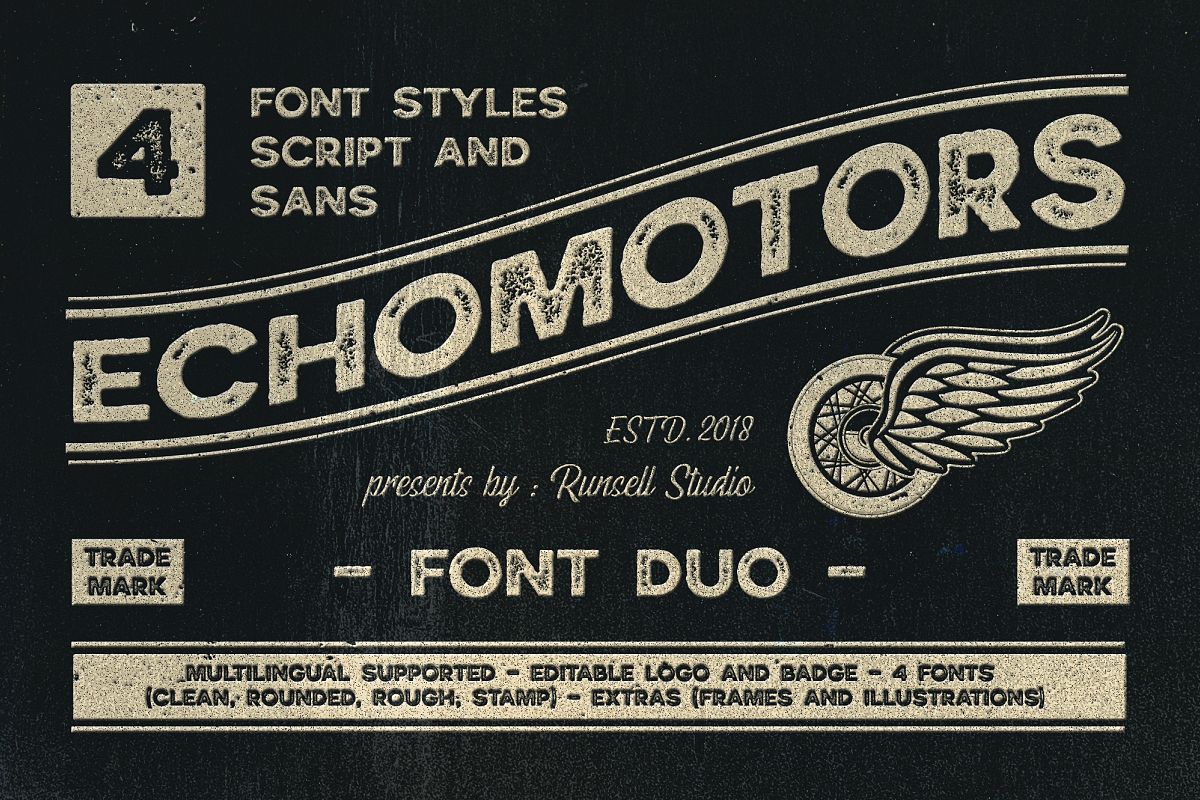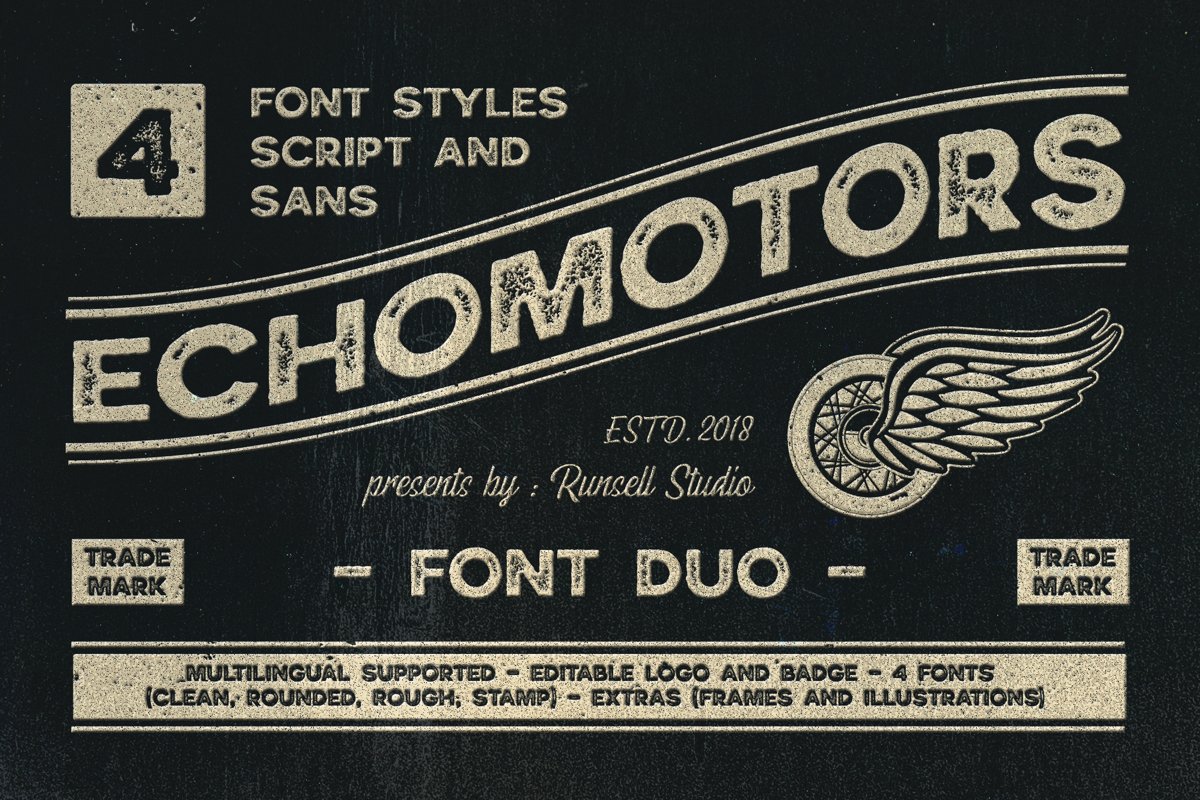
Echomotors
Echomotors fonts is font collection with bold sans and script. There are 4 styles (sans, rounded, rough and stamp) of each Echomotors font. This font matches applies in some designs such as the logotype, magazine, headline blog or website, packaging, branding, and more products also avaliable for multilangual languages. The script font of Echomotors have features stylistic alternates set for more custome designs.
Echomotors Font features uppercase, lowercase, numeral, punctuation & symbol, ligatures, stylistic alternates for script, multilingual support, PUA encoded (fully accessible without additional design software), 4 style (clean, rounded, rough and stamp).